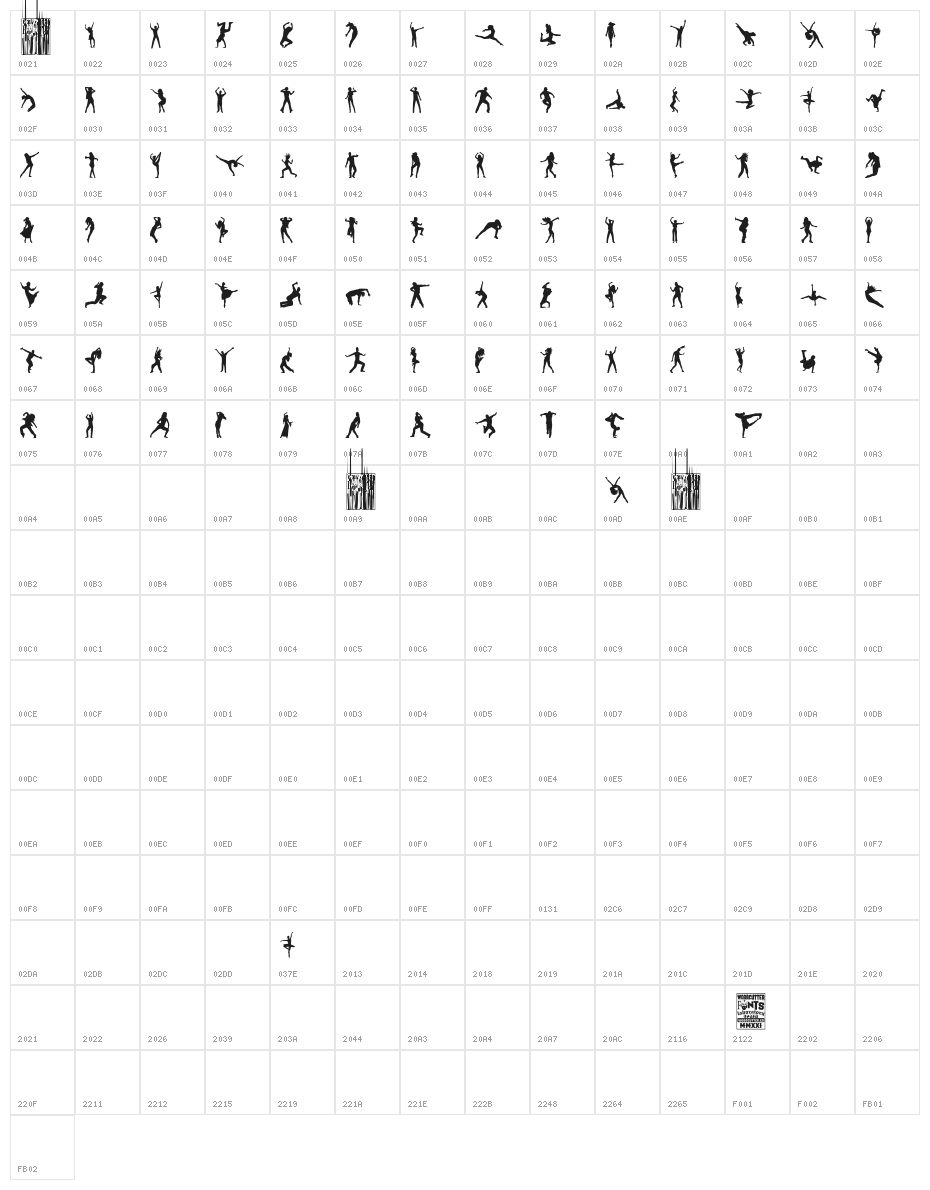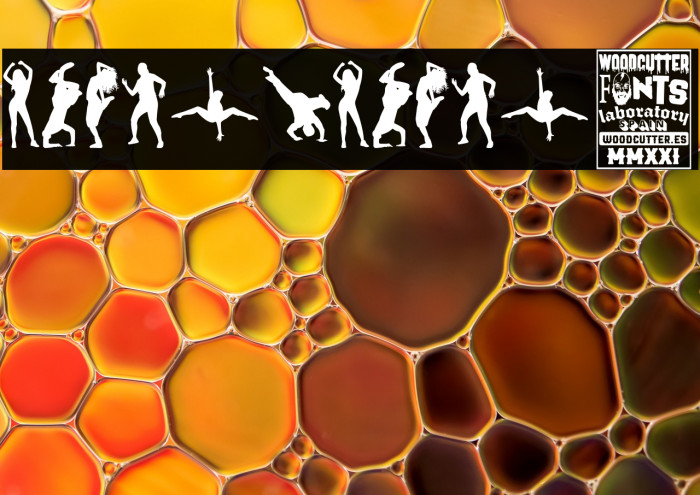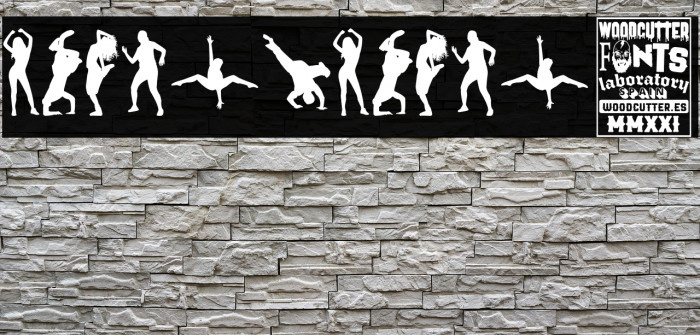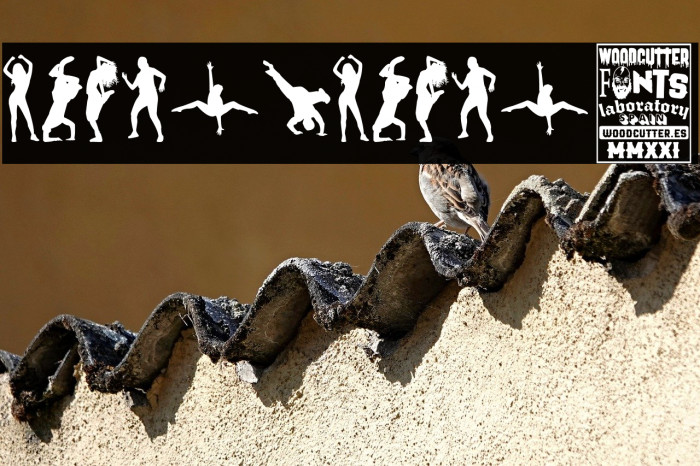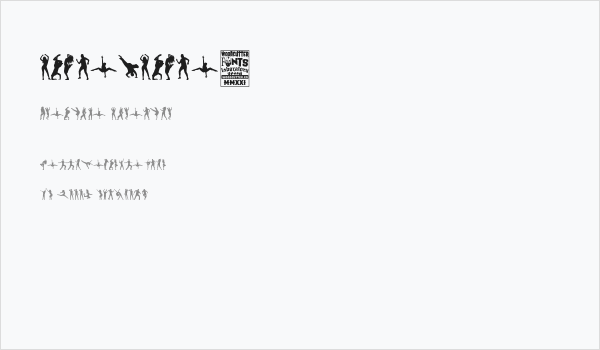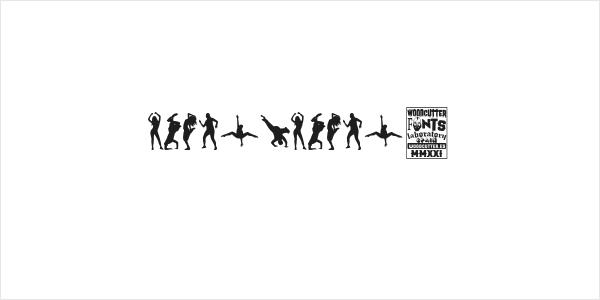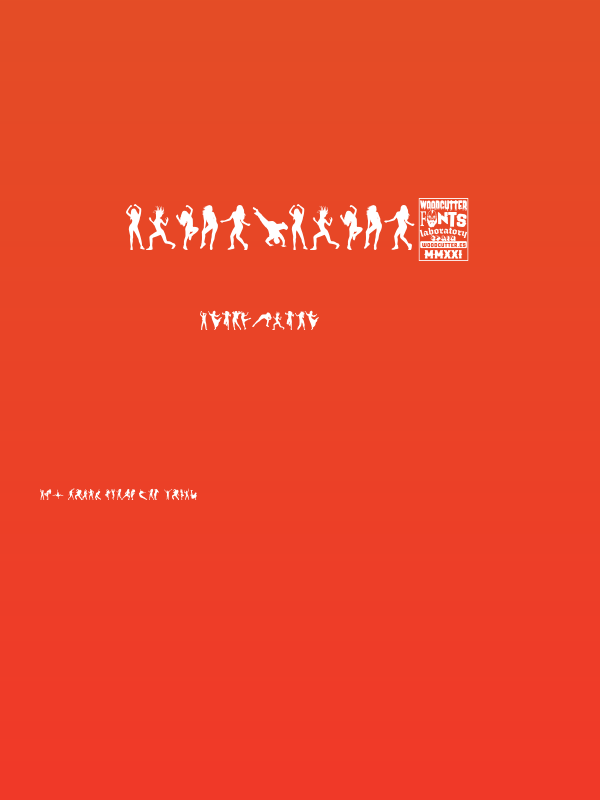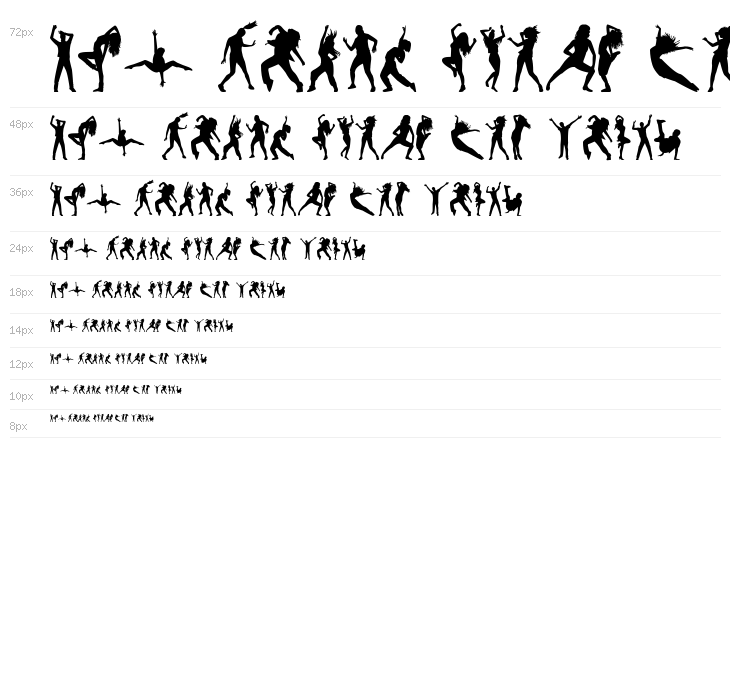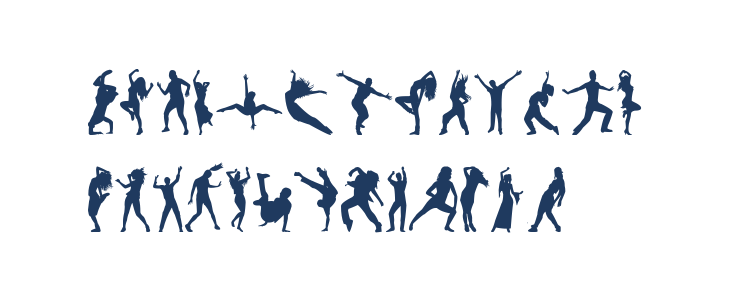
Dance,Dance! Font
| Stile generale | Energetic, playful, and dynamic |
| Caso d'uso | Headlines, logos, and decorative display text where a dance or movement theme is desired |
| Progetti proposti | Event posters, dance studio branding, party invitations, entertainment industry graphics, and creative display uses. |